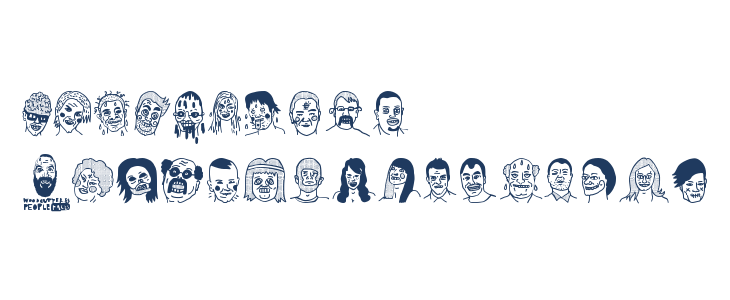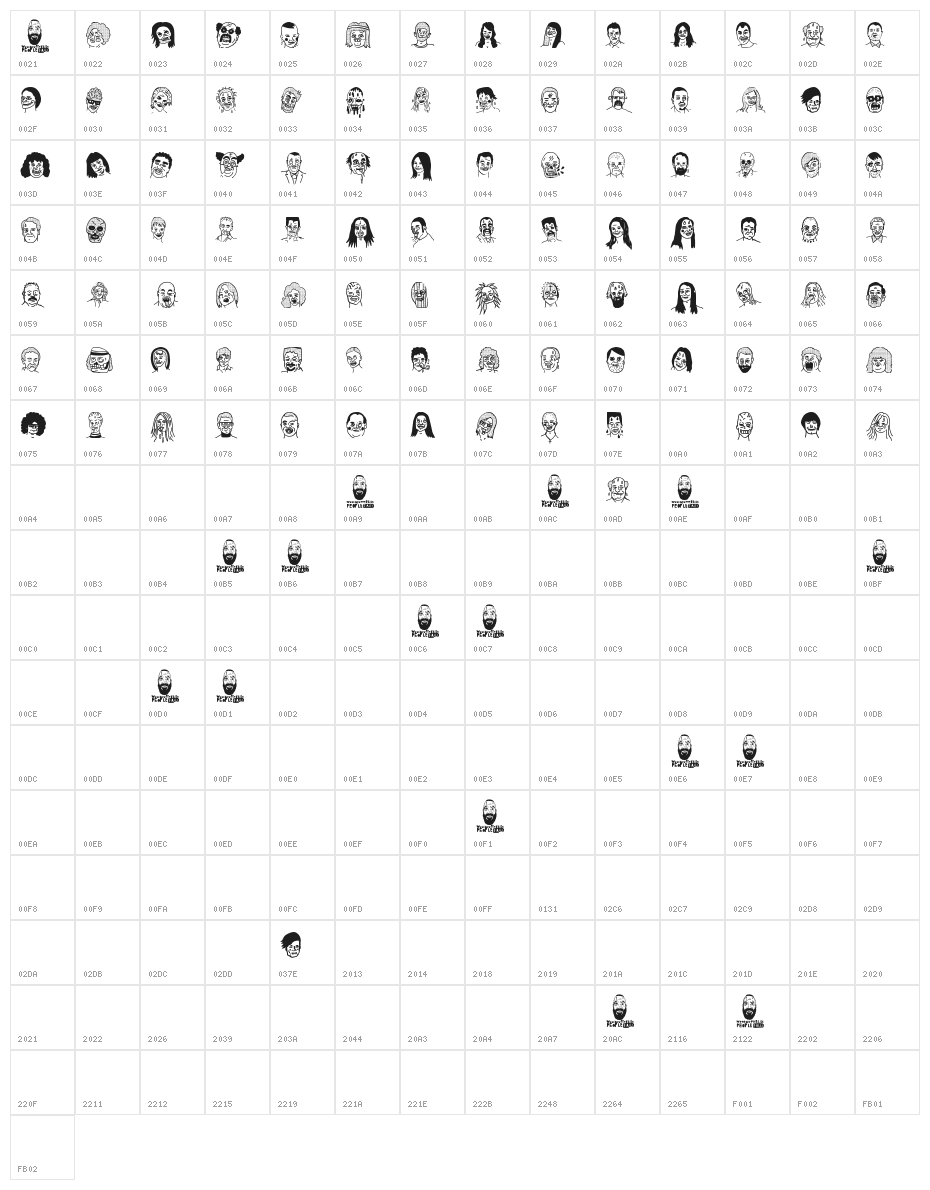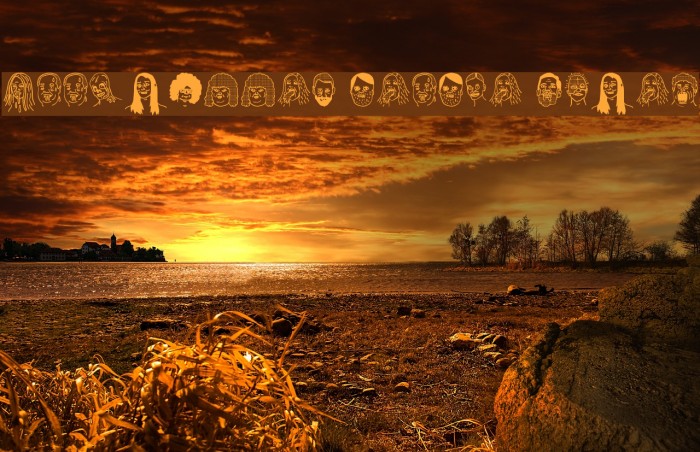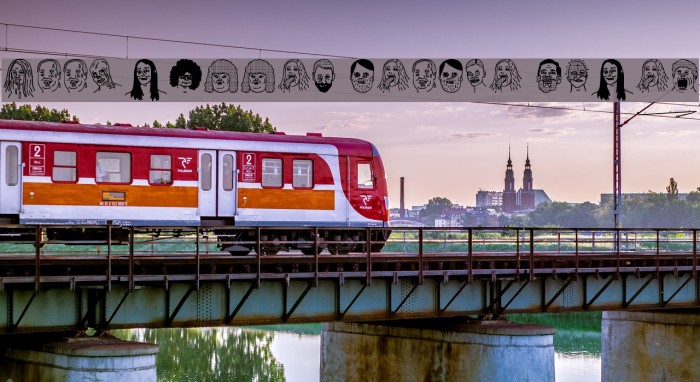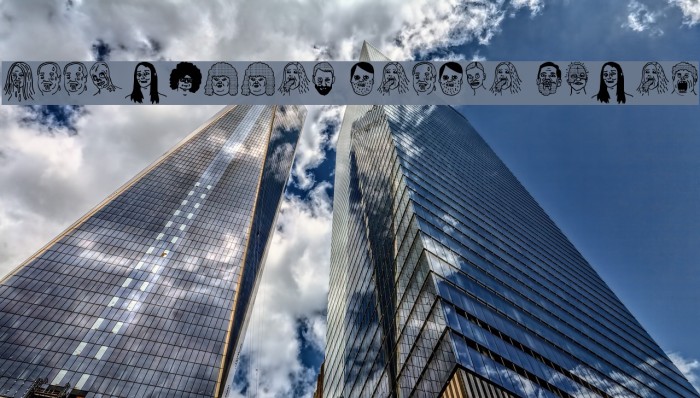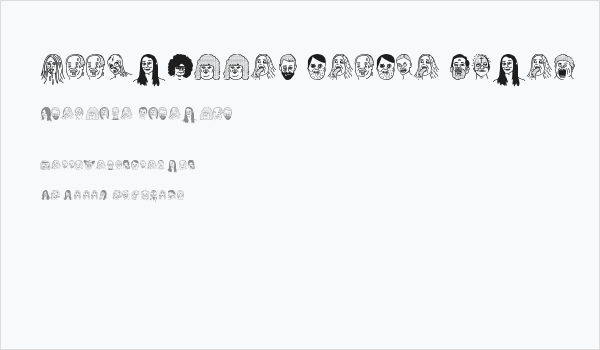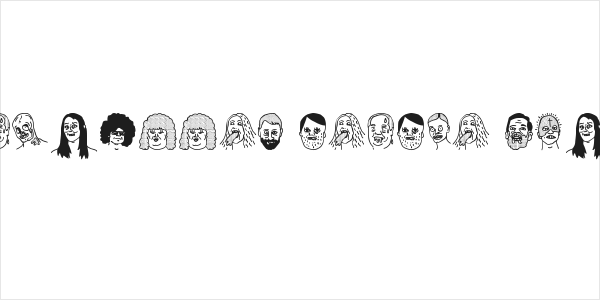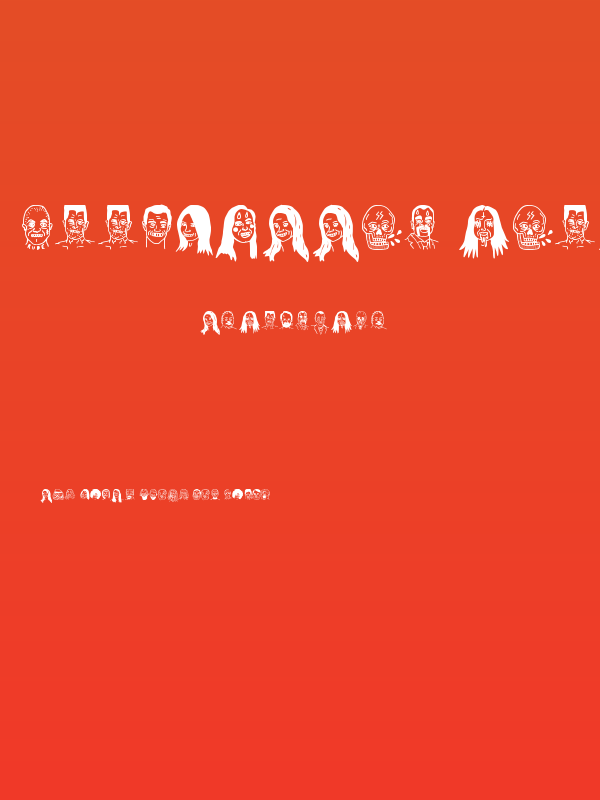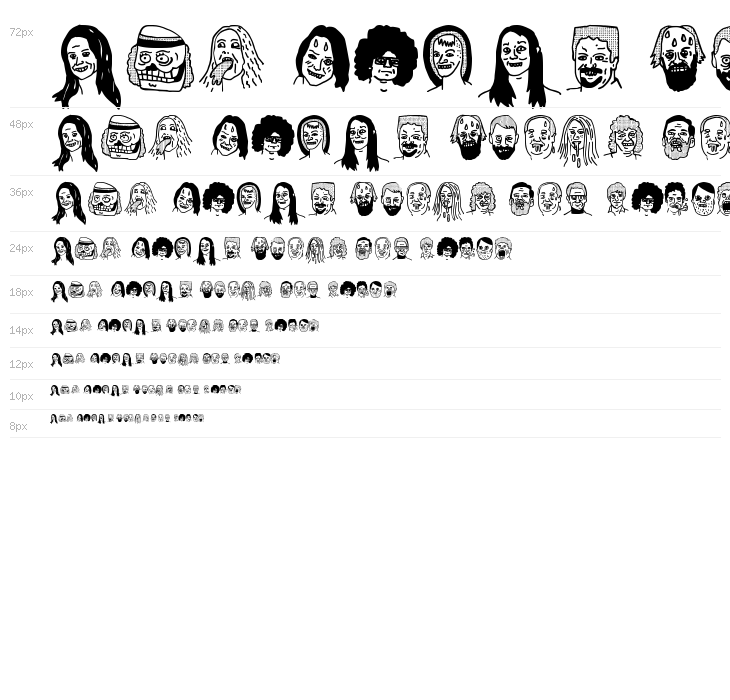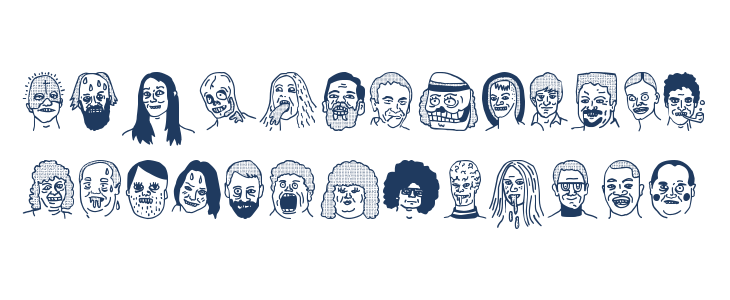
woodcutter people faces Font
woodcutter people faces Description
A highly decorative and illustrative typeface composed of hand-drawn, cartoonish faces in place of traditional letterforms and glyphs. Each character is represented by a unique, expressive face with exaggerated features, giving the set a playful and quirky appearance.
| Overall Style | Decorative, Playful, Whimsical |
| Use Case | Headlines, Logos, Posters, Themed graphics |
| Proposed Projects | Posters, album covers, event flyers, comics, childrenΓ’β¬β’s books, creative branding, Halloween or themed graphics. |